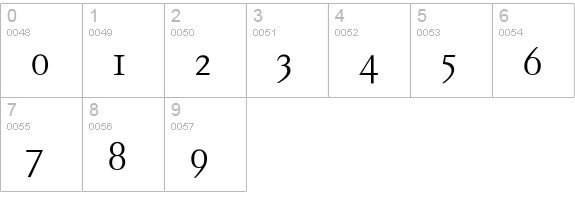
Corporate A Expert Light Font Details
Corporate A Expert Light is a refined, elegant variant in the Corporate typeface family \xE2\x80\x94 well suited to elegant body text, refined sub-headings, and luxury branding.
Corporate A Expert Light font is a sleek and sophisticated typeface designed for professional use in corporate settings. With its clean lines and elegant design, this font exudes professionalism and modernity. Perfect for use in business documents, presentations, and marketing materials, Corporate A Expert Light is sure to elevate the look of any project. And the best part? This high-quality font is available for free download at FontsMarket.com. Whether you’re a designer, marketer, or business professional, you can easily access and use this versatile font to enhance your projects and make a lasting impression. Upgrade your typography game with Corporate A Expert Light font today!